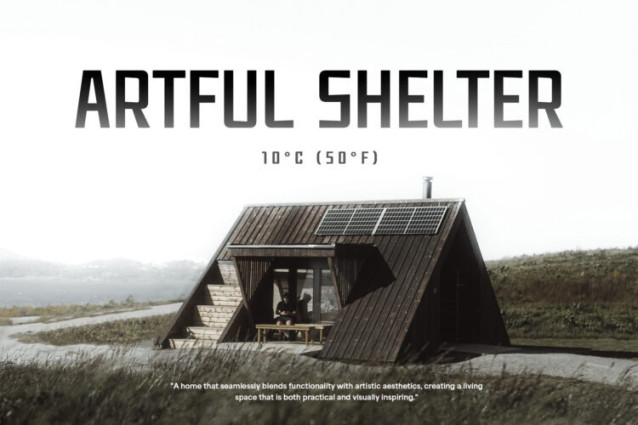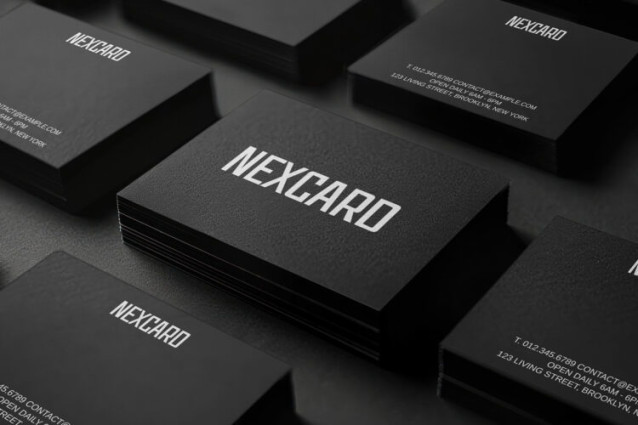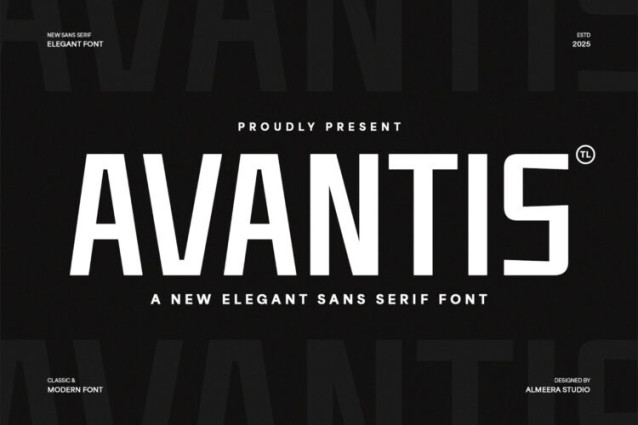
Avantis Font
Avantis Font, a sophisticated and new elegant sans serif font that flawlessly merges classic appeal with a modern aesthetic. This versatile typeface is perfect for branding, corporate identity, magazine layouts, and digital advertising, where clarity meets contemporary style. Avantis boasts clean lines and balanced proportions, ensuring exceptional readability across all applications. Its understated elegance provides a polished and professional look, making it a go-to choice for designers seeking a font that is both timeless and current. Elevate your typography with Avantis, a font that brings a fresh, refined, and sophisticated touch to any creative project.